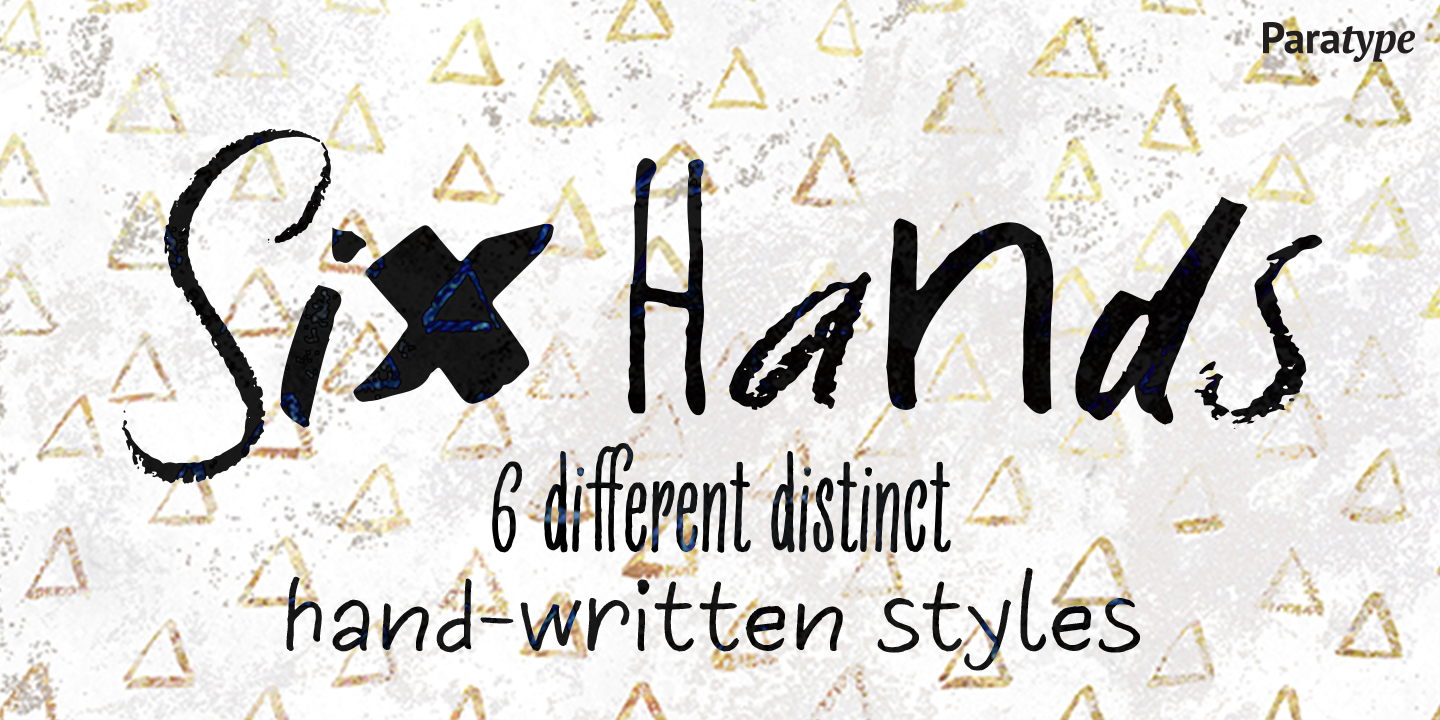
Please note, you must purchase this font for commercial use. You can download Six Hands Font Free Download for testing purposes and explore its unique, handwritten design. Six Hands Font is perfect for creative projects, branding, invitations, and any design that requires a personal, artistic touch.
With its expressive strokes and informal style, Six Hands Font brings a sense of individuality and creativity to your designs. It’s ideal for projects that need to convey personality, authenticity, and a handcrafted feel, making it perfect for social media graphics, event promotions, and personalized designs.
Six Hands Font Free Download supports multilingual characters, making it suitable for global projects. Its artistic design ensures readability while maintaining a distinct and playful look.